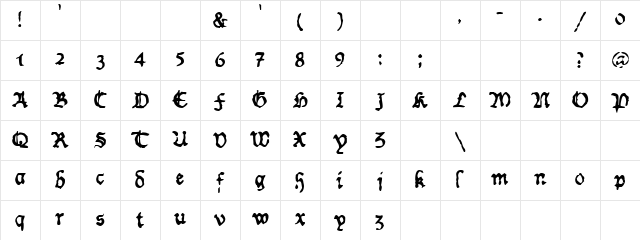
Worn Manuscript Rough Rough
Style: Rough
Design Context for Worn Manuscript Rough
Worn Manuscript Rough embraces imperfection - its rough, textured character adds raw authenticity to designs that want to feel lived-in and unconventional.
A strong fit for alternative music projects, graffiti-adjacent design, and anything that deliberately resists polish.
Font Pairing: Pair with a clean, minimal sans to create contrast between raw and refined - the tension is part of the effect.
Pro Tip: Use Worn Manuscript Rough at larger sizes where the texture and irregularity of each letterform can be clearly seen - it loses its character at small sizes.